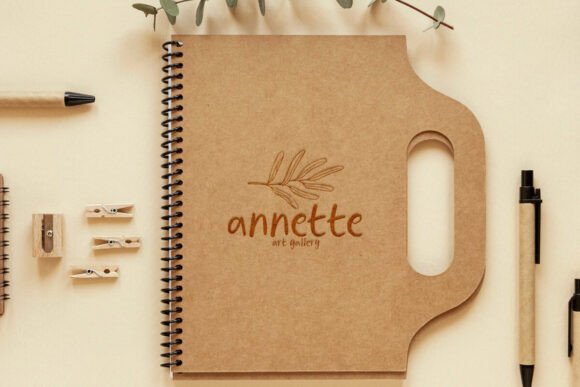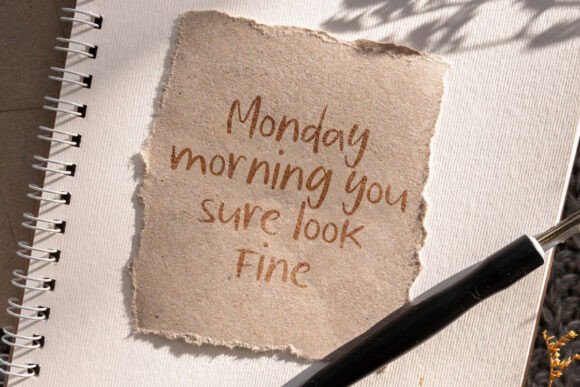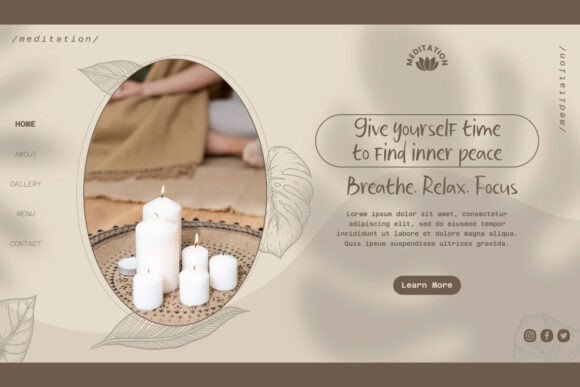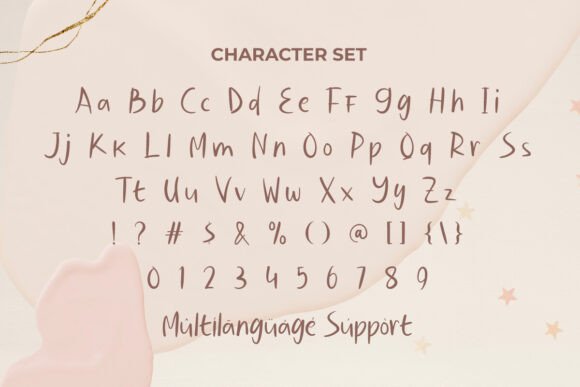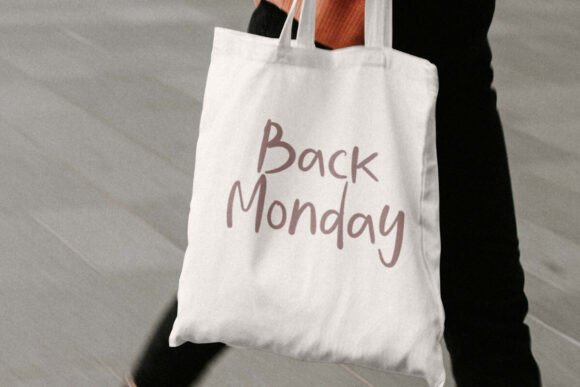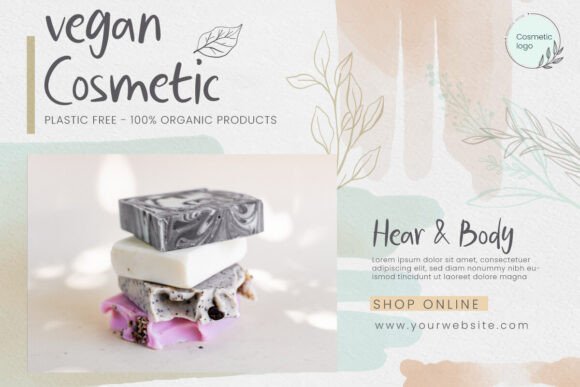
Introducing Back Monday Font: The Chic Handwriting Display Font for Your Creative Projects
Are you on the hunt for a font that exudes casual, girly vibes and adds a touch of elegance to your designs? Look no further than Back Monday Font, a beautiful handwriting display font that’s perfect for a wide range of creative projects. In this article, we’ll dive into the details of this stunning font and explore its many uses, from branding and marketing materials to stationery and product packaging.
What is Back Monday Font?
Back Monday Font is a chic handwriting display font that’s designed to give your designs a personal, handwritten feel. With its simple, yet elegant lines, this font looks like it was created using a small, thin brush, giving it a neat and effortless appearance. The font’s casual, girly vibes make it perfect for designers and crafters who want to add a touch of femininity to their work.
Key Features of Back Monday Font
- Handwritten appearance: Back Monday Font has a beautiful, handwritten appearance that’s perfect for adding a personal touch to your designs.
- Casual, girly vibes: This font exudes a casual, girly charm that’s perfect for designers and crafters who want to create feminine and elegant designs.
- Versatile: Back Monday Font is a versatile font that can be used for a wide range of creative projects, from branding and marketing materials to stationery and product packaging.
- Easy to read: Despite its handwritten appearance, Back Monday Font is easy to read, making it perfect for use in body text and captions.
Uses for Back Monday Font
Back Monday Font is a versatile font that can be used for a wide range of creative projects, including:
- Brand image: Use Back Monday Font to create a unique and memorable brand image that reflects your company’s personality and style.
- Cover design: Add a touch of elegance to your book or magazine covers with Back Monday Font.
- Custom design: Use Back Monday Font to create custom designs for your clients, including logos, brochures, and business cards.
- Invitation: Create beautiful invitations for weddings, parties, and other special events with Back Monday Font.
- Label: Use Back Monday Font to create labels for your products, including food labels, wine labels, and more.
- Marketing material: Add a touch of elegance to your marketing materials, including flyers, posters, and social media graphics.
- Menu: Create a beautiful menu for your restaurant or cafe with Back Monday Font.
- Poster: Use Back Monday Font to create eye-catching posters for your business or event.
- Product packaging: Add a touch of elegance to your product packaging with Back Monday Font.
- Quote: Use Back Monday Font to create inspiring quotes and typography art.
- Stationery: Create beautiful stationery, including letterheads, notecards, and journals.
- Web design: Use Back Monday Font to add a touch of elegance to your website design.
Why Choose Back Monday Font?
There are many reasons why Back Monday Font is a great choice for designers and crafters, including:
- Unique and elegant: Back Monday Font is a unique and elegant font that will add a touch of sophistication to your designs.
- High-quality: This font is high-quality and comes with a range of characters, including uppercase and lowercase letters, numbers, and punctuation.
Back Monday Font is a beautiful handwriting display font that’s perfect for designers and crafters who want to add a touch of elegance and femininity to their designs. With its casual, girly vibes and versatile uses, this font is a great choice for a wide range of creative projects. Whether you’re creating branding materials, marketing materials, or product packaging, Back Monday Font is a great choice. So why wait? Download Back Monday Font today and start creating stunning designs that will leave a lasting impression on your audience.